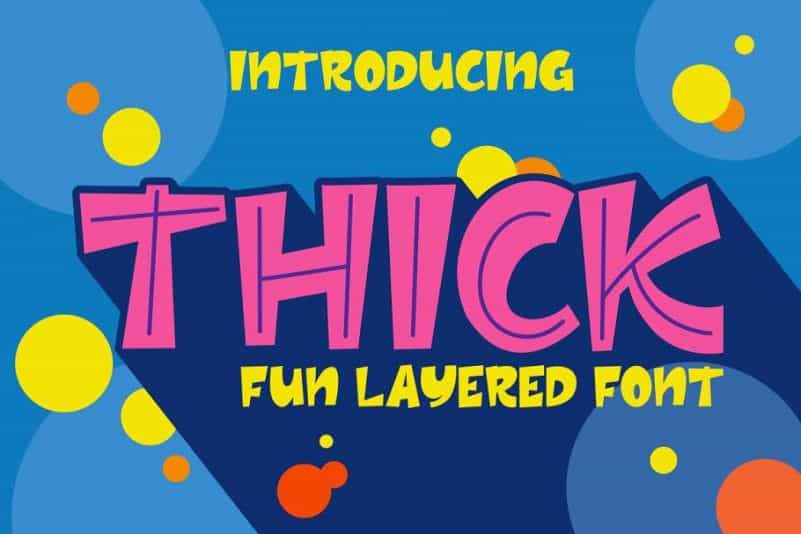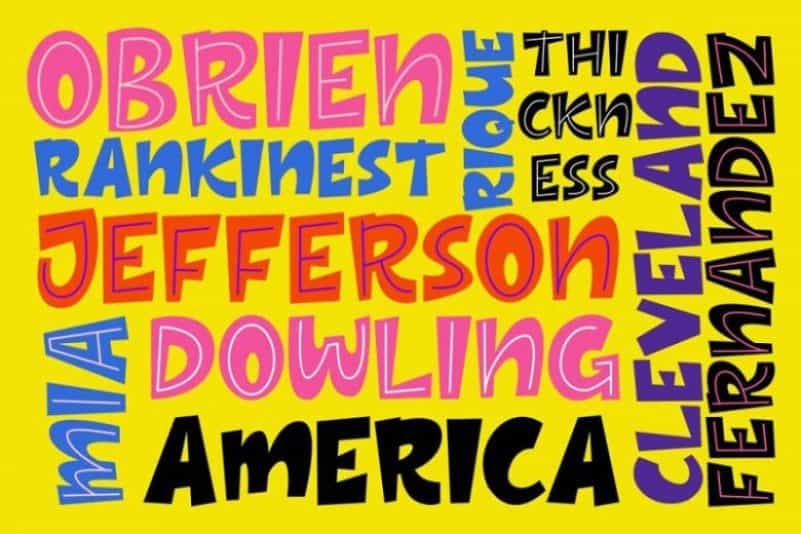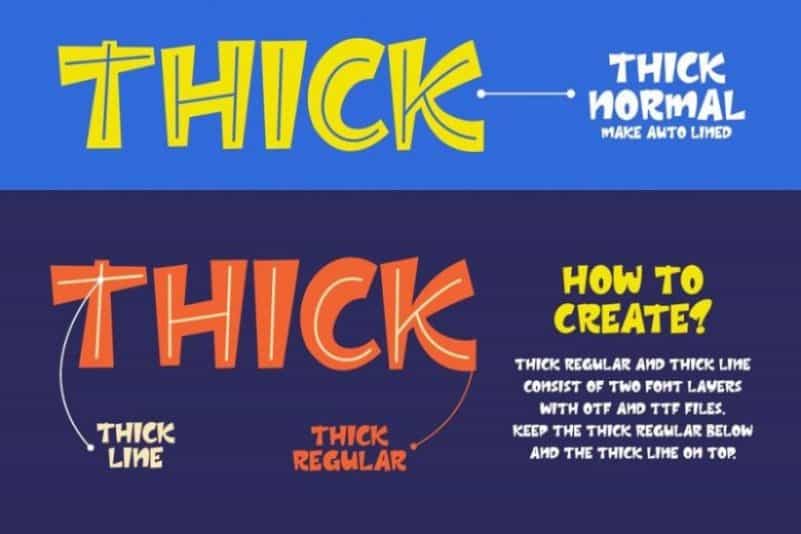
Thick is fun layered font, a font with bold and modern nuances to make it appear free and fun. This font looks playful, humorous but at the same time quite masculine due to the use of bold application. It is was designed by Good Java Studio. Thick is suitable for all your fun designs and also the HALLOWEEN PARTY POSTER.